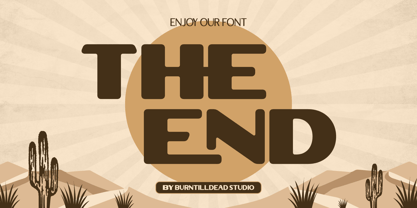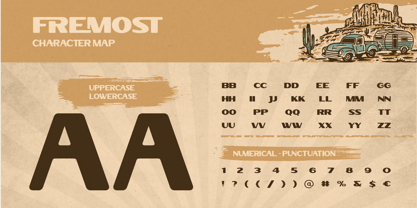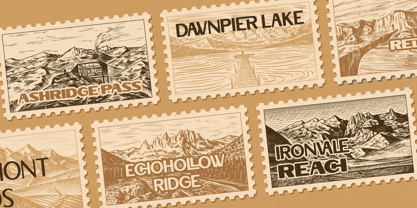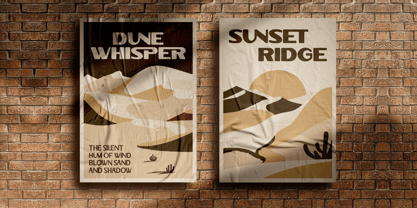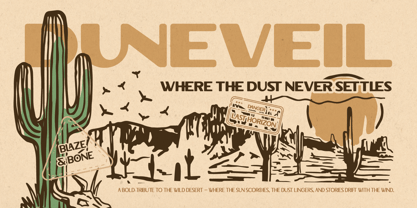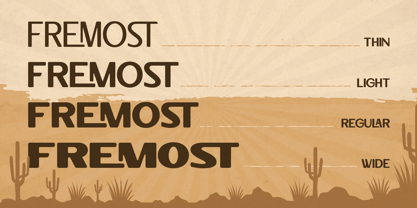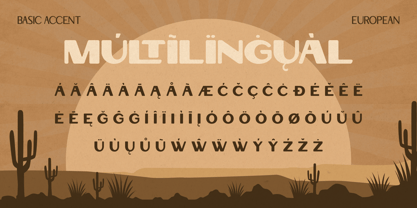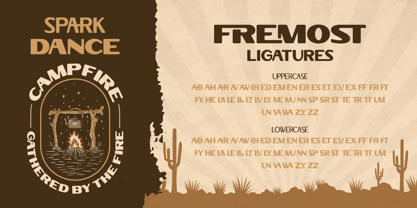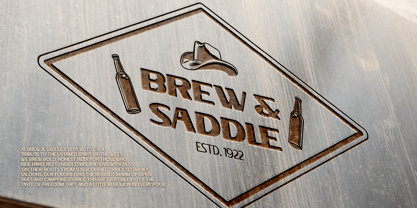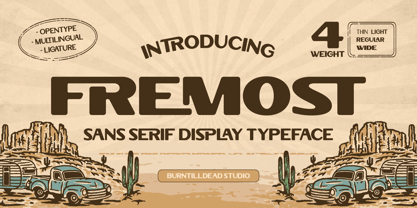
Fremost
by Burntilldead
The Fremost Font Family was designed by Eric Kurniawan and published by Burntilldead. Fremost contains 4 styles and family package options. More about this family
Fremost is a bold and versatile sans serif display typeface that's perfect for a wide range of creative projects. Designed with a distinct western vibe, this font brings a touch of classic frontier style to your designs.
What makes Fremost stand out?
• Distinctive Look: Fremost has a strong, sturdy feel with a clean, modern twist. Its slightly condensed structure makes it perfect for headlines, logos, and branding that needs to grab attention. The design is inspired by the rugged, adventurous spirit of the American West, giving it a unique character you won't find anywhere else.
• Versatile Weights: This font family comes in four different weights—Thin, Light, Regular, and Wide. This variety gives you the flexibility to use it for both prominent titles and smaller details, all while maintaining a consistent aesthetic.
• Built for Display: Fremost is a display font, meaning it's optimized for larger sizes. It looks fantastic on posters, packaging, t-shirts, and any other design where you want your text to make a statement.
Whether you're creating a cool new logo for a brand, designing a poster for a band, or just looking for a font with a rugged and adventurous feel, Fremost is an excellent choice. It's easy to read, making your designs stand out with a confident, effortless cool.